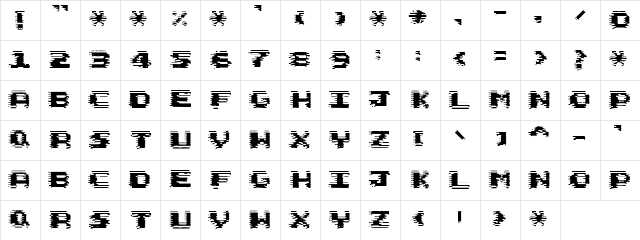
Circuit Scraping Normal Free Font
Circuit Scraping Normal
Design Context for Circuit Scraping
Circuit Scraping is a composed and adaptable typeface that performs quietly and consistently across a wide range of design contexts.